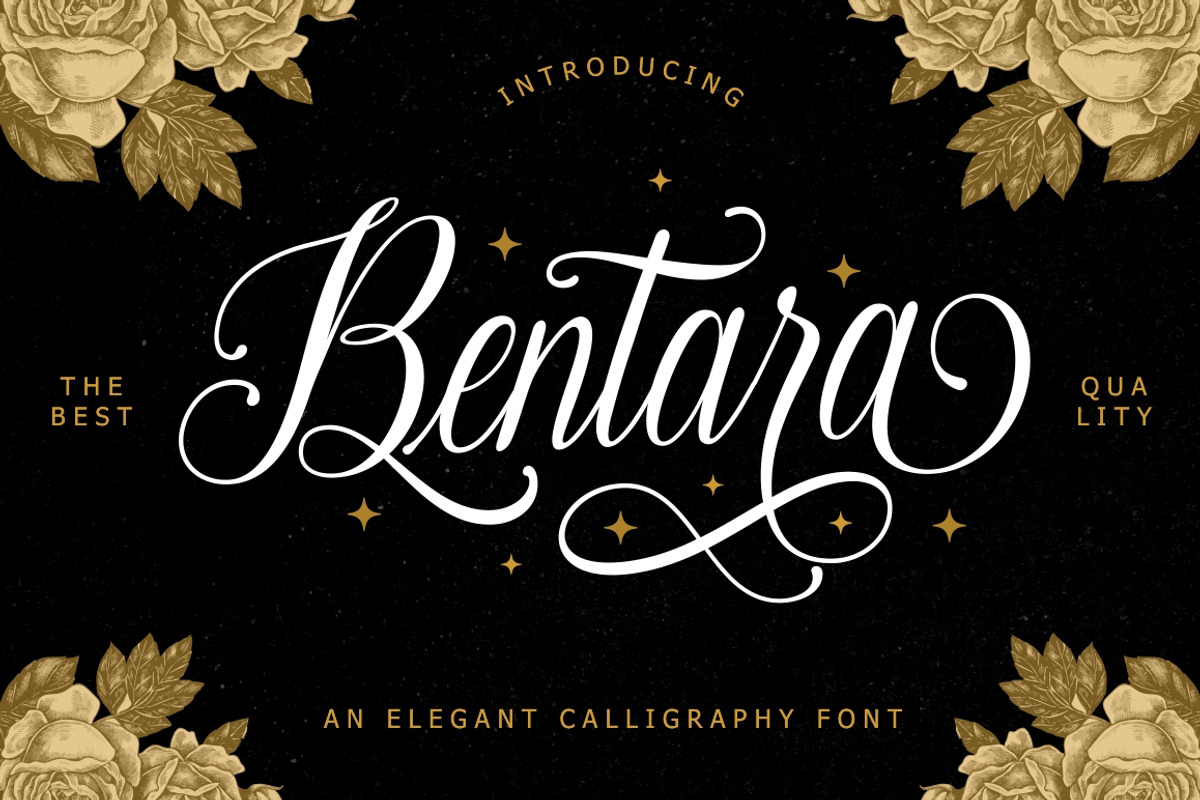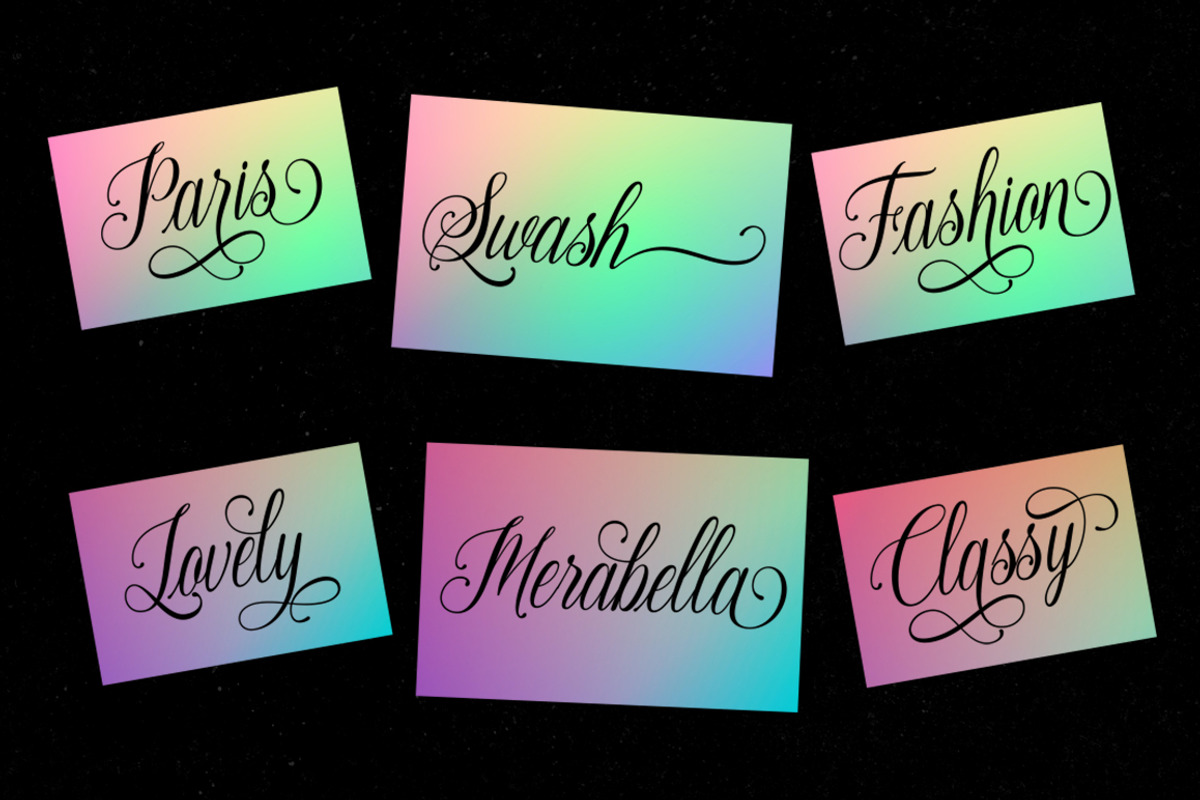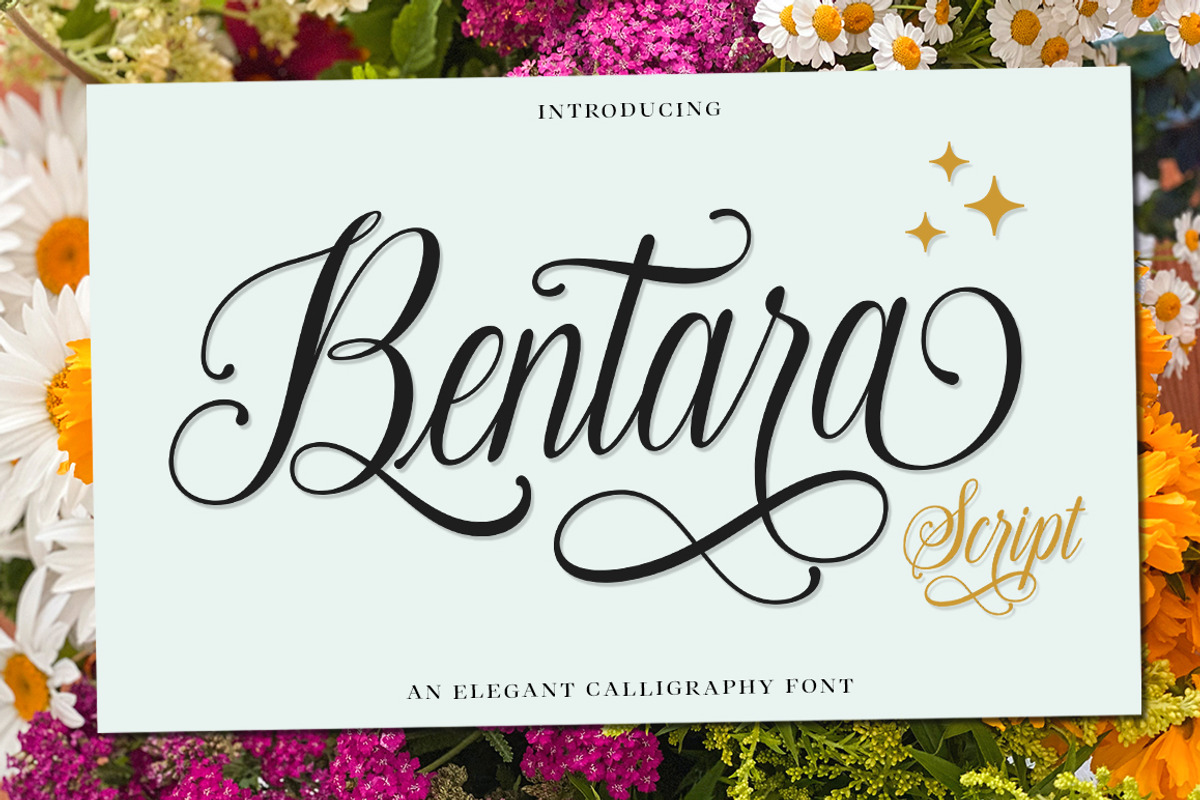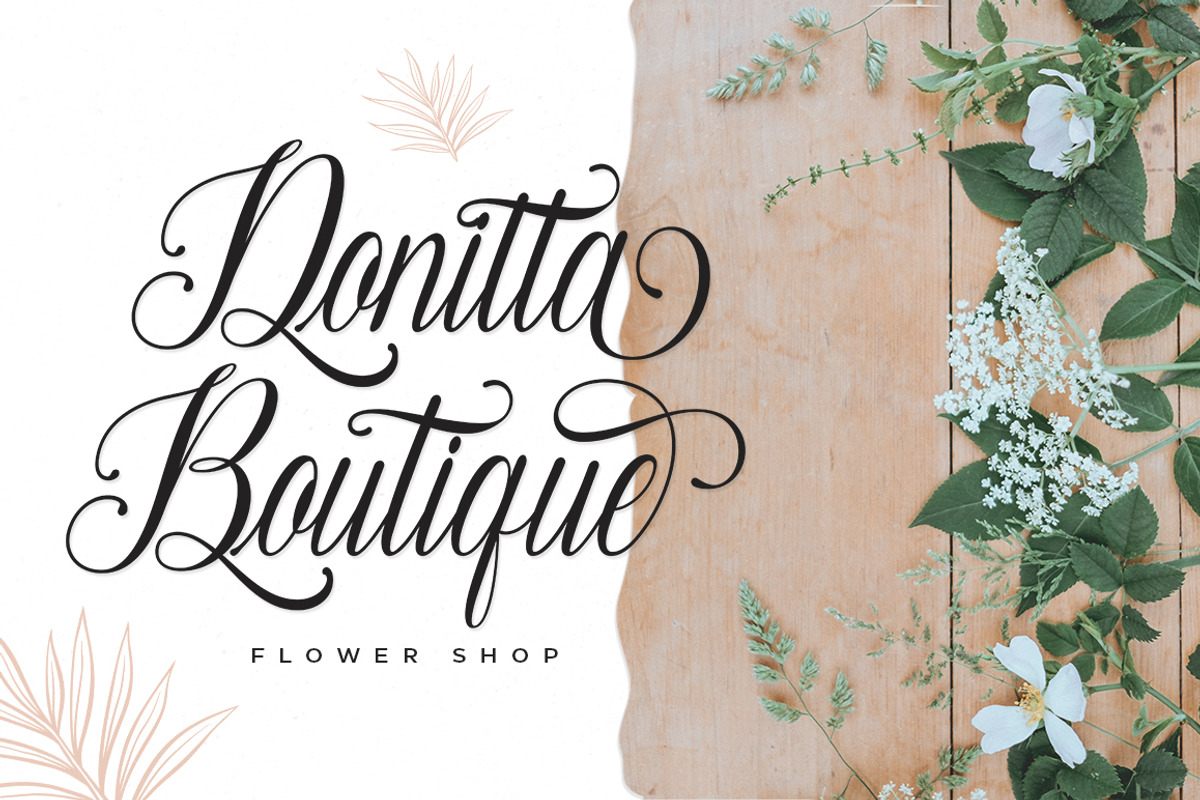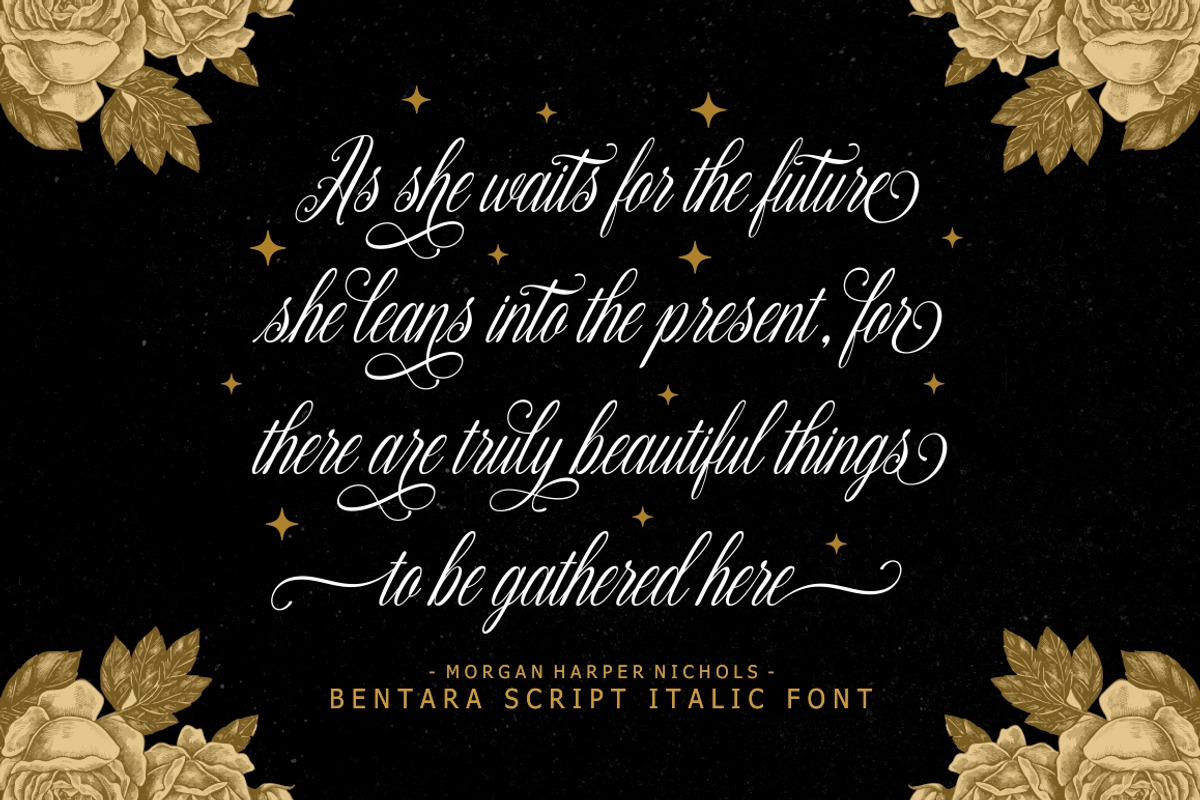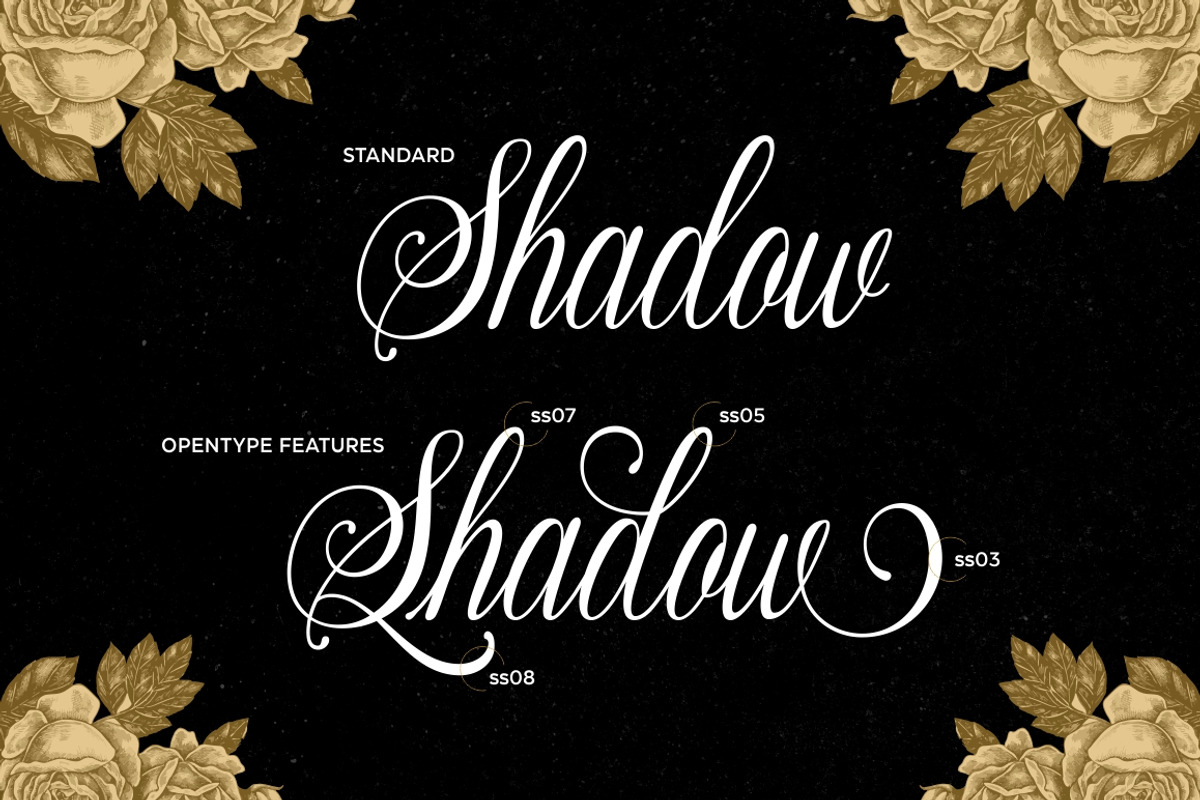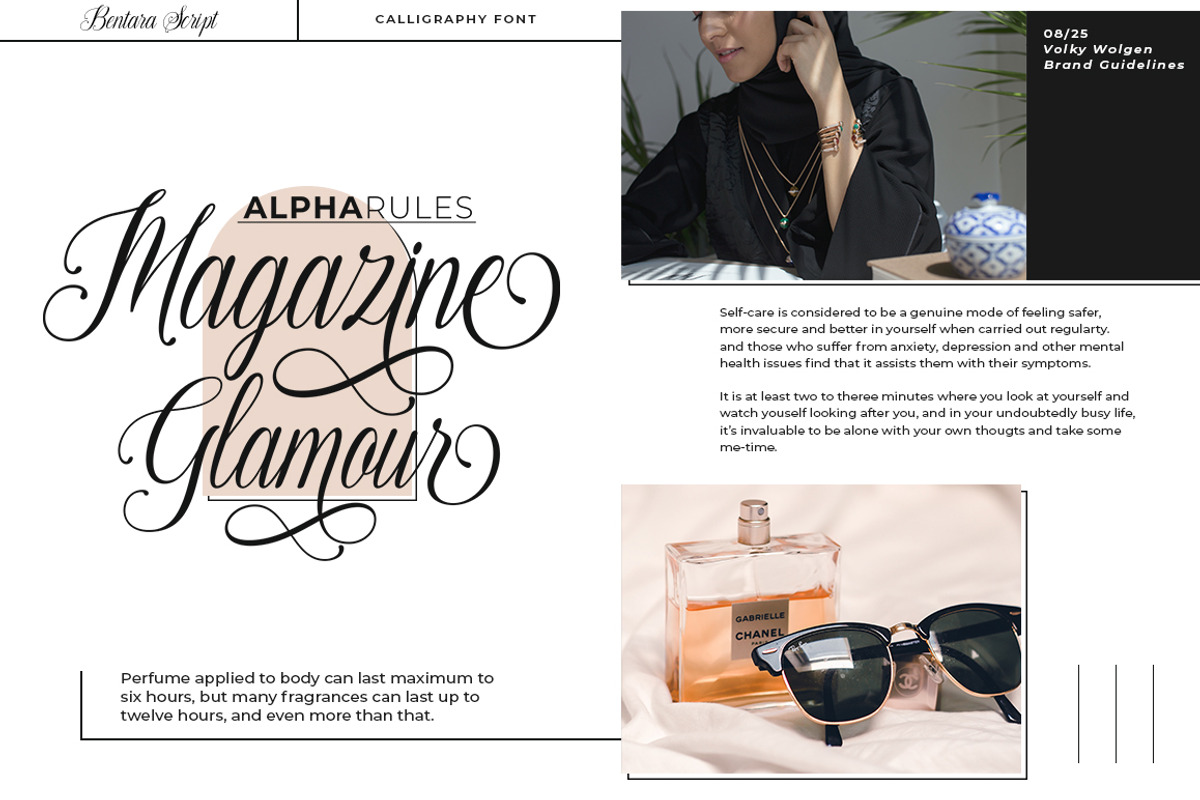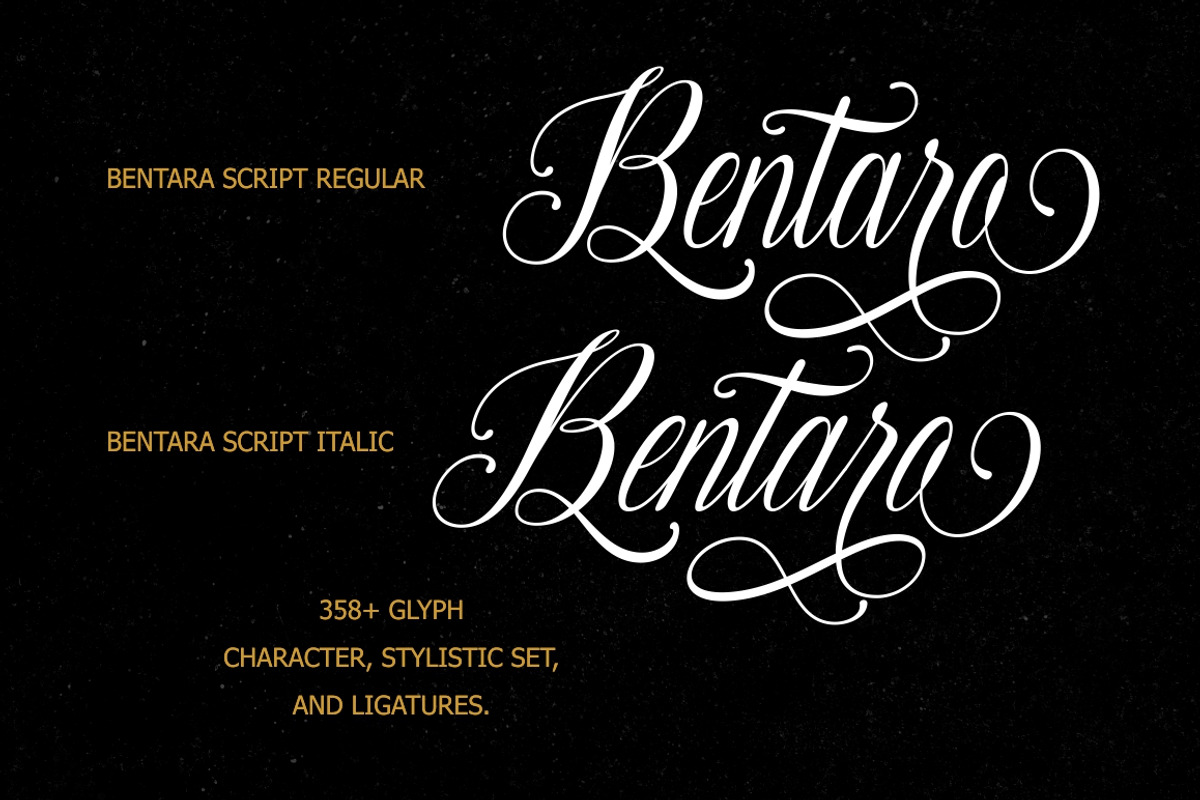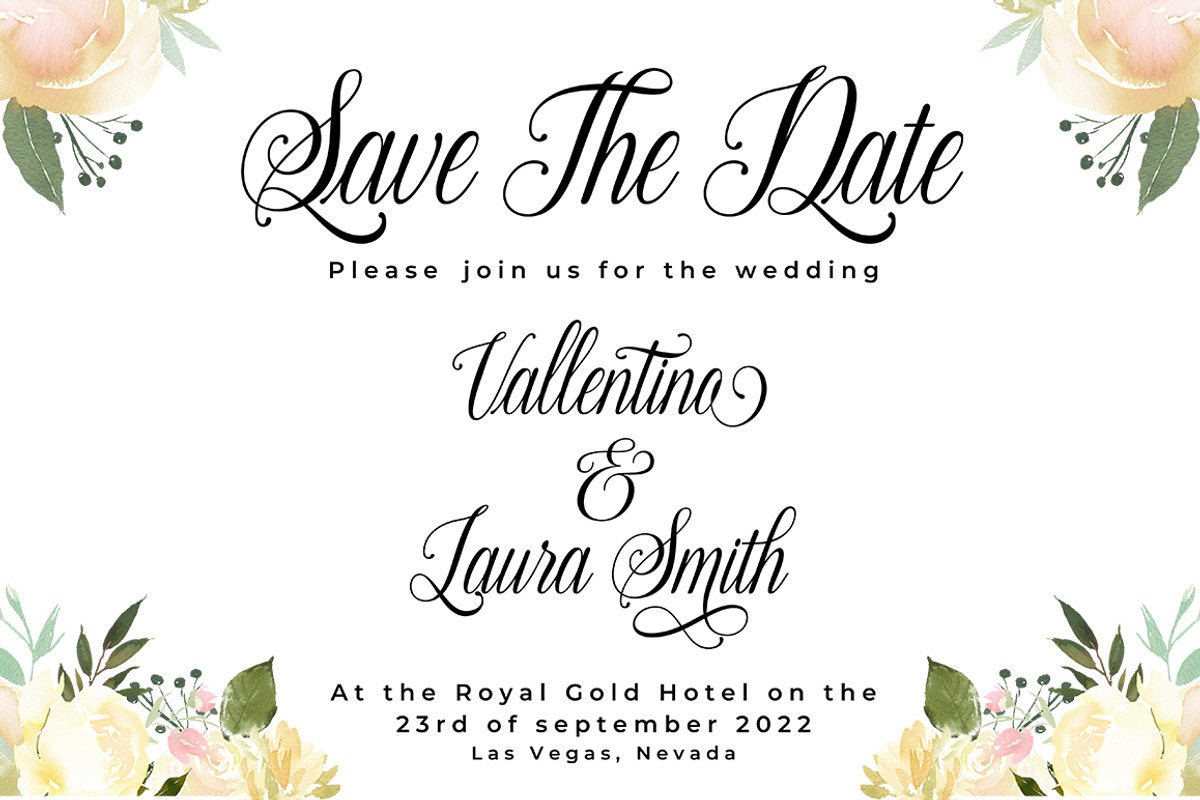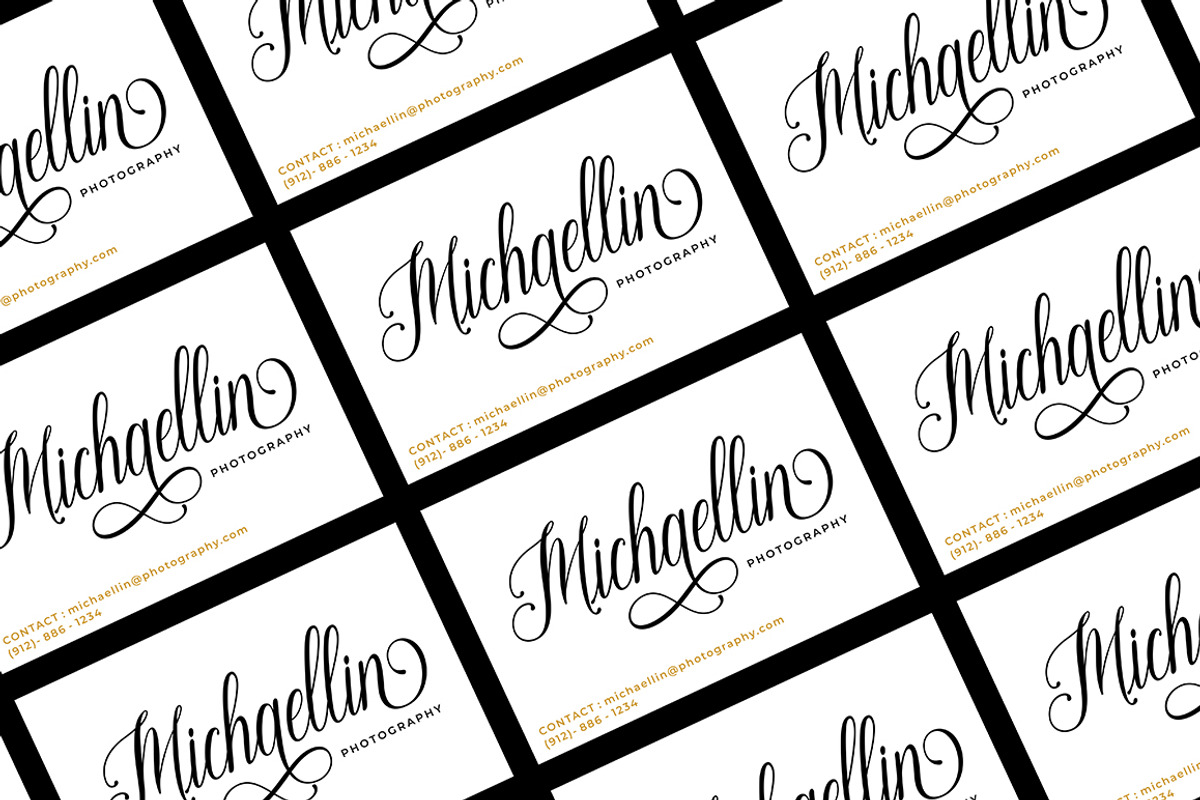
Bentara Script
INTRODUCING
Bentara Script
Bentara Script a fresh & modern new script with a handcrafted calligraphy style, decorative characters and dancing baseline! Very pretty for invitations such as greeting cards, branding materials, business cards, quotes, posters and more!!
Bentara Script comes with 358+ glyphs. Alternative characters are divided into several Open Type features such as Swash, Stylistic Sets, Stylistic Alternate, Contextual Alternate. The Open Type feature can be accessed using Open Type savvy programs such as Adobe Illustrator, Adobe InDesign, Adobe Photoshop version of Corel Draw X, and Microsoft Word. And this Font has provided PUA unicode (custom coded font). so that all alternative characters can be easily accessed in full by a craftsman or designer.
Bentara Script
Uppercase & Lowercase Letters International Languages & Symbols Support Punctuation & PUA Numbers Unicode Range Standard Alternative Style.